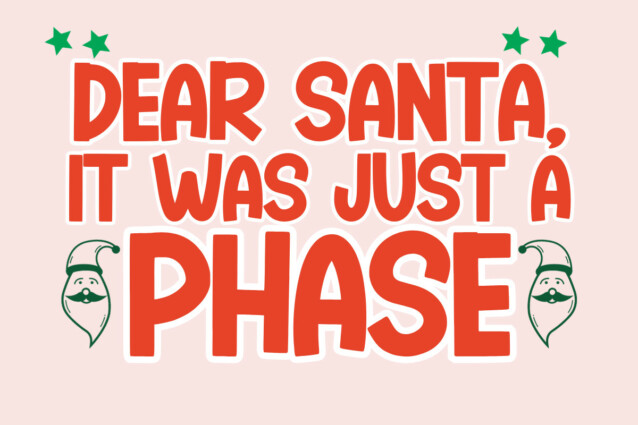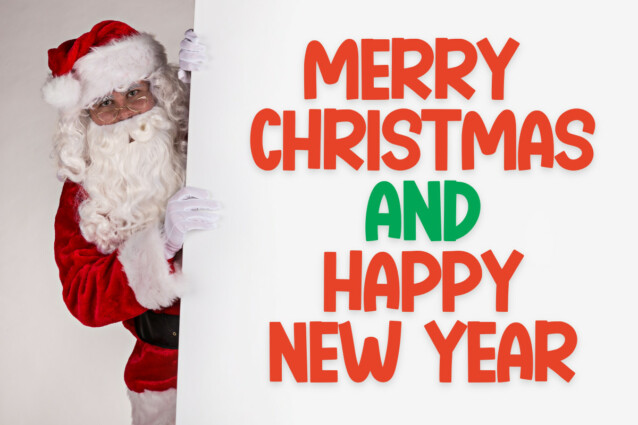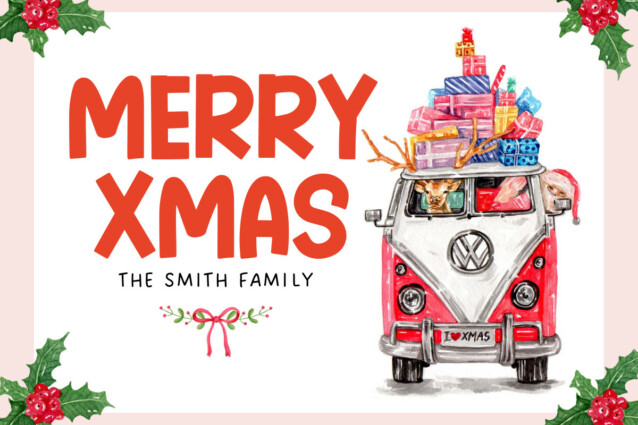
Santa Cruze Font
Santa Cruze Font is a unique, bold and cute display font. Whatever the topic, this font will be a wonderful asset to your font library, as it has the potential to enhance any creation.